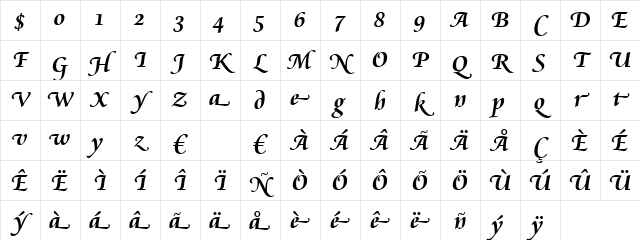
Cataneo Swash BT flows with the natural rhythm of handwritten lettering, making it ideal for designs that call for warmth and personal expression. Its bold stroke weight gives it real presence on the page.
Font Pairing: Combine Cataneo Swash BT with a simple geometric sans for maximum contrast - the tension between flowing curves and clean structure is a classic typographic pairing.
Pro Tip: Use Cataneo Swash BT for short runs of text - names, titles, or taglines. Extended body copy in script faces tires the eye quickly.